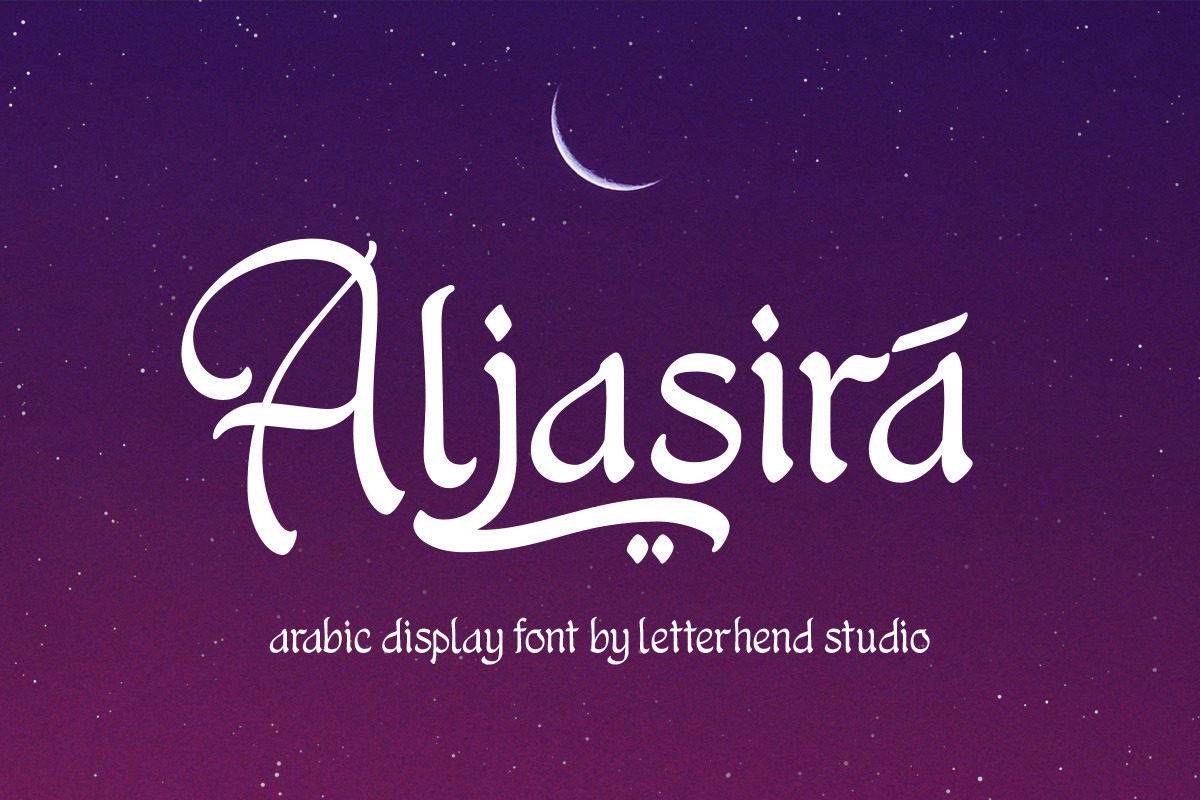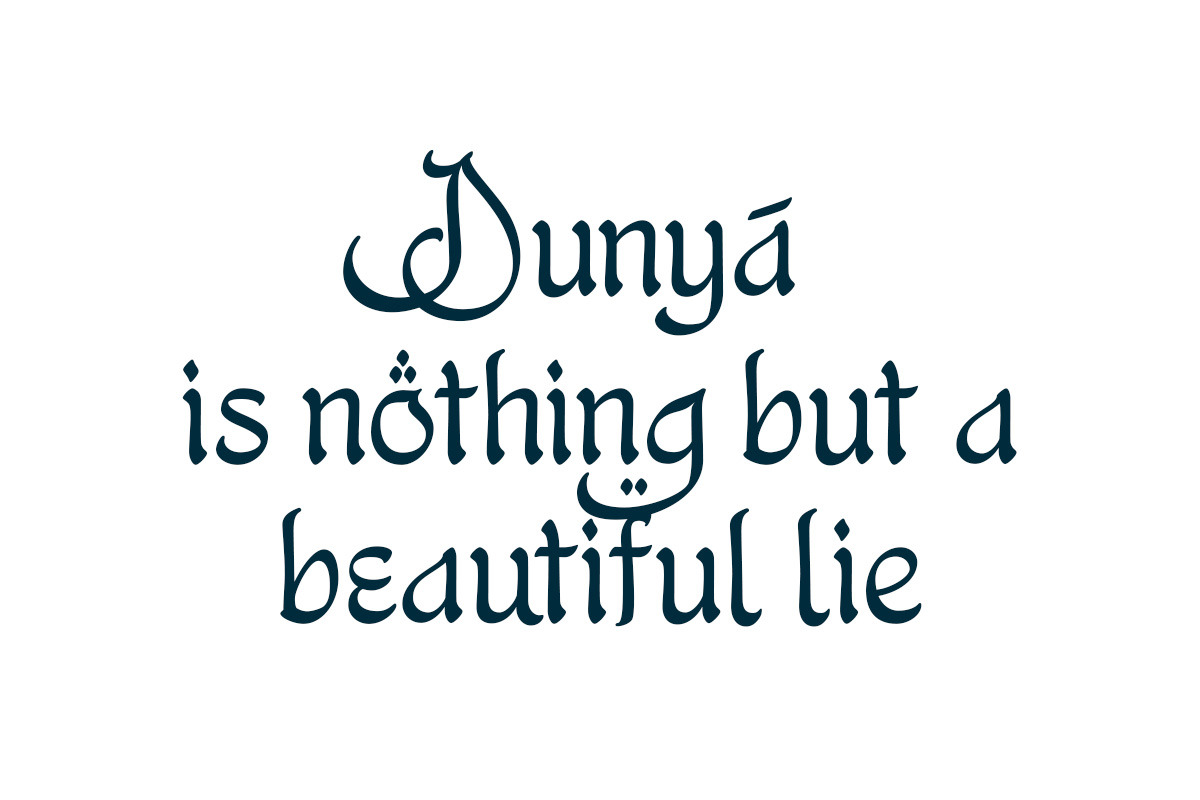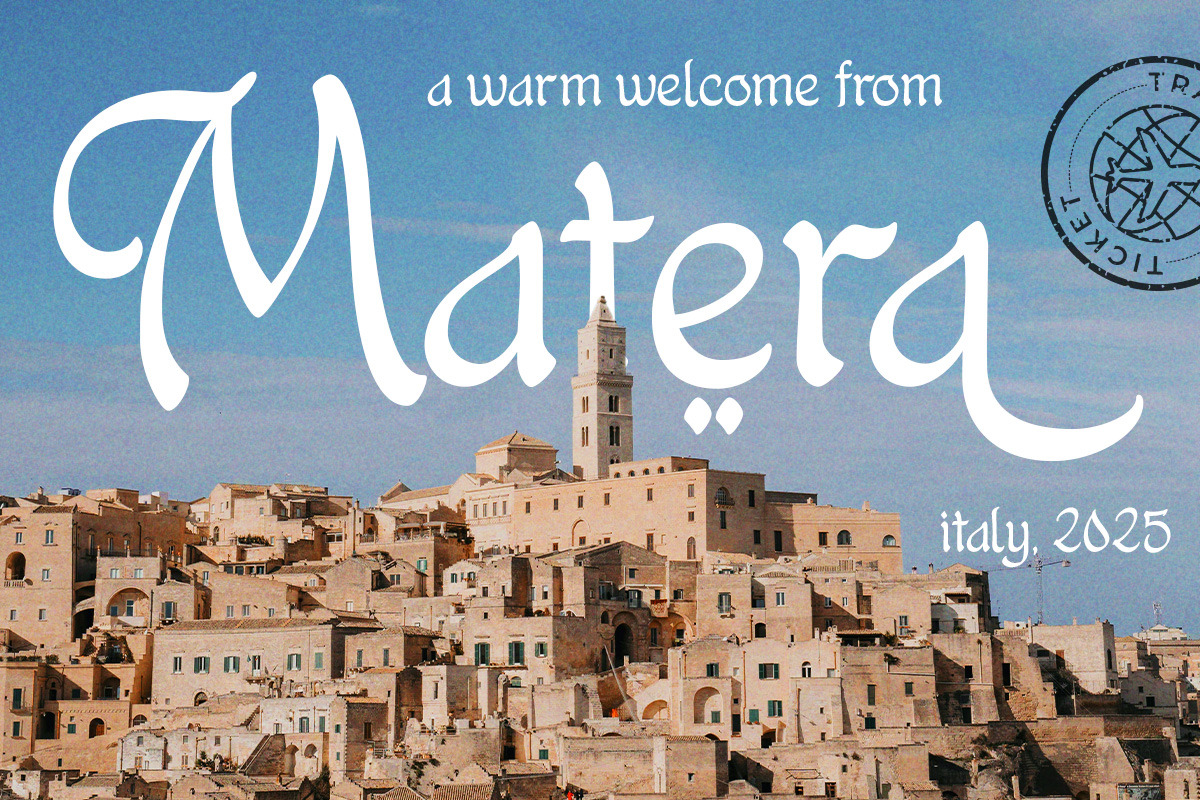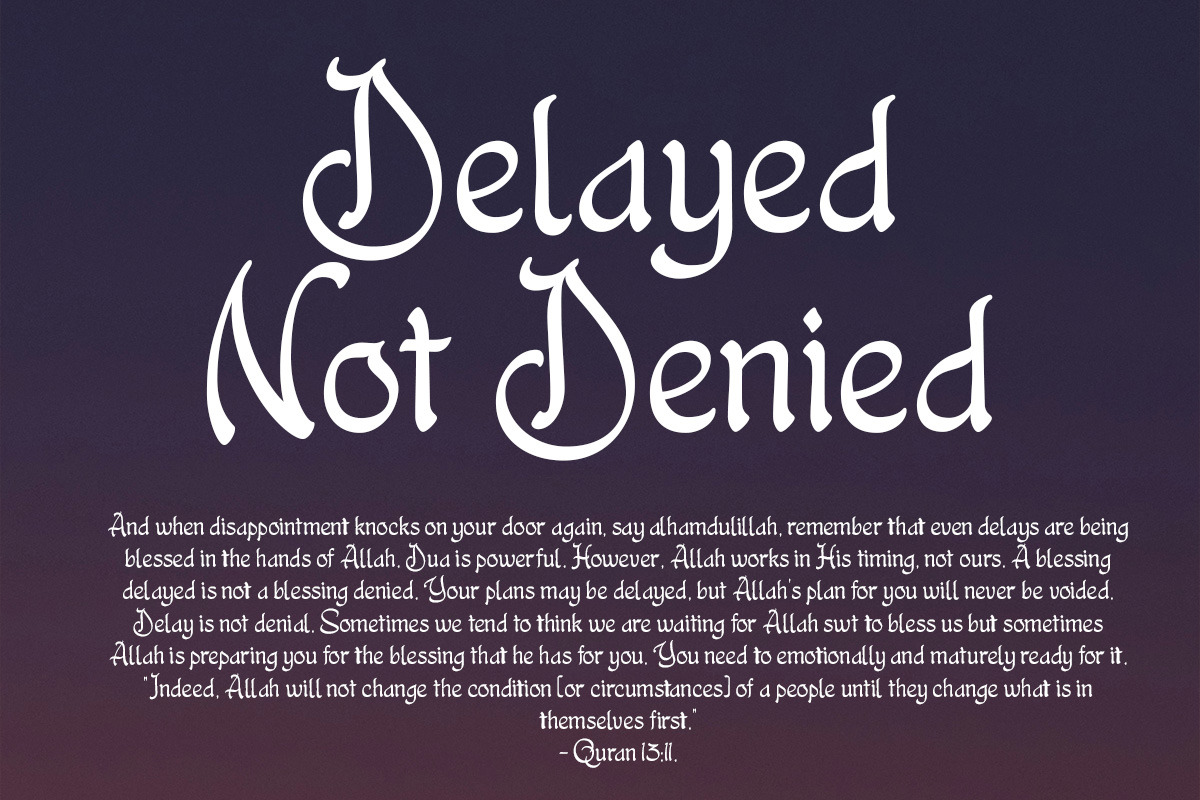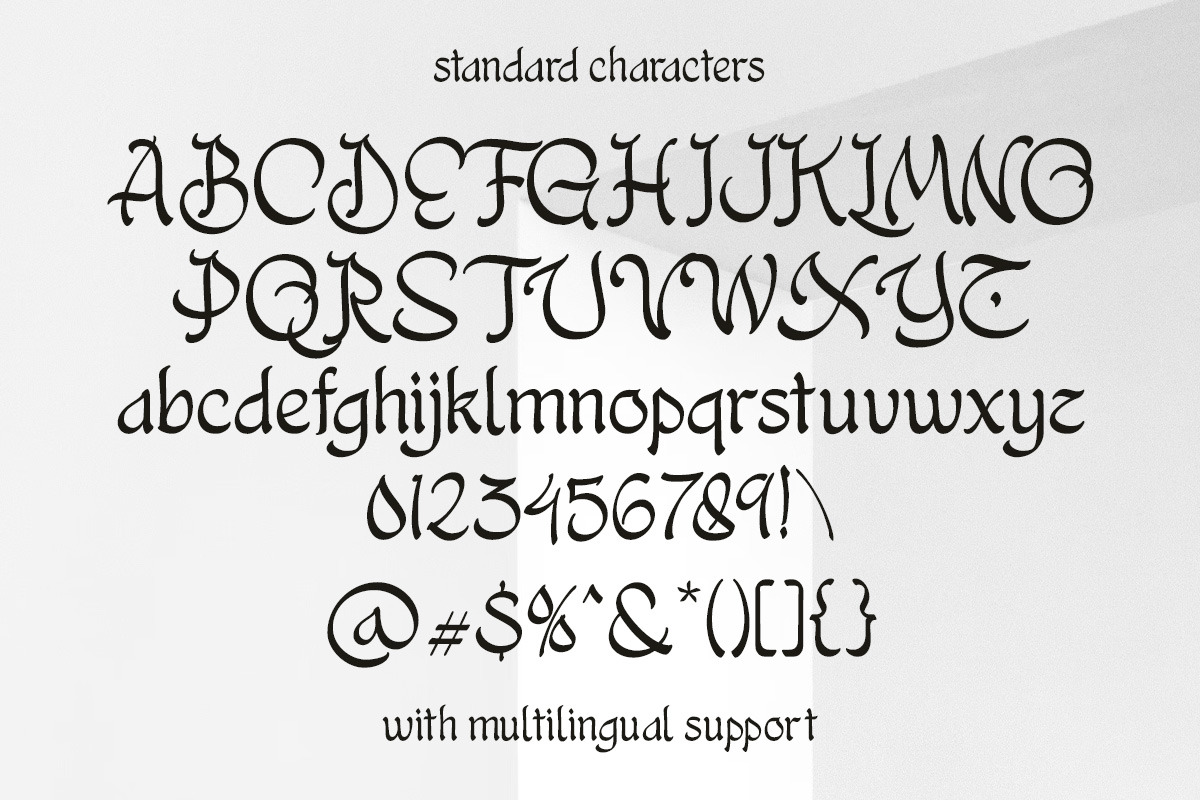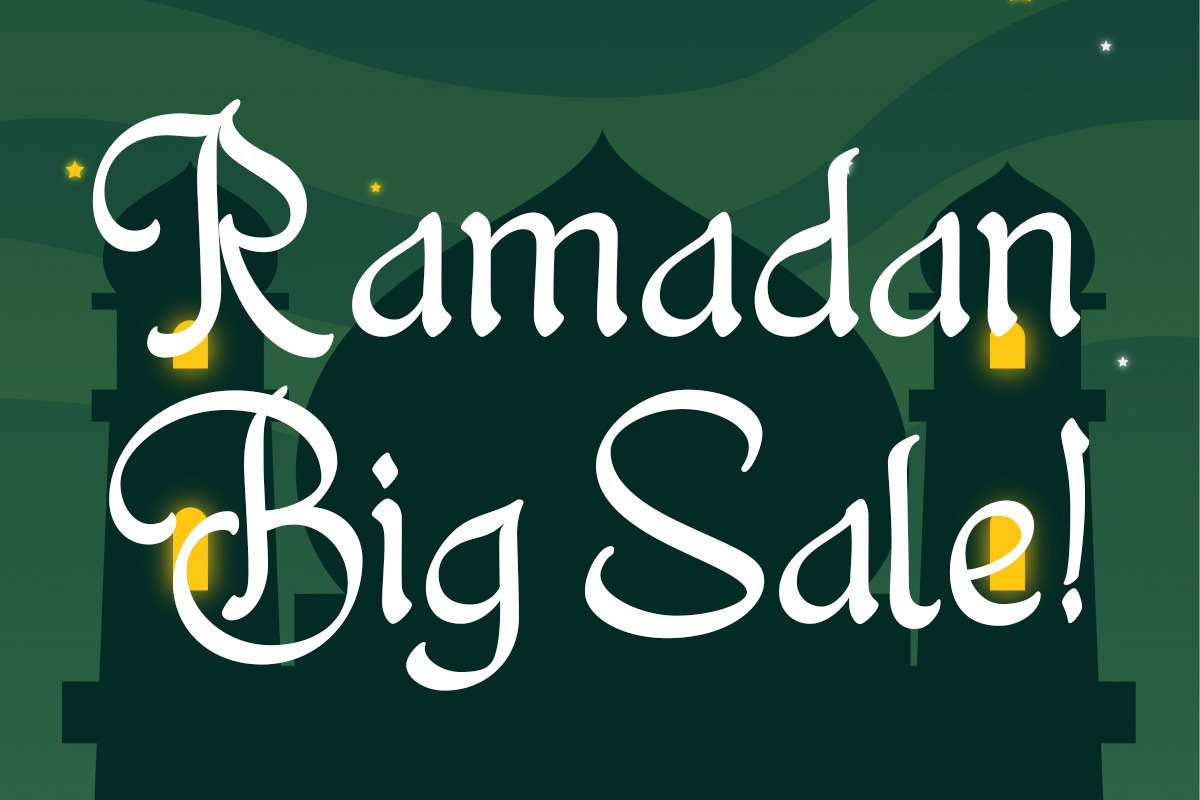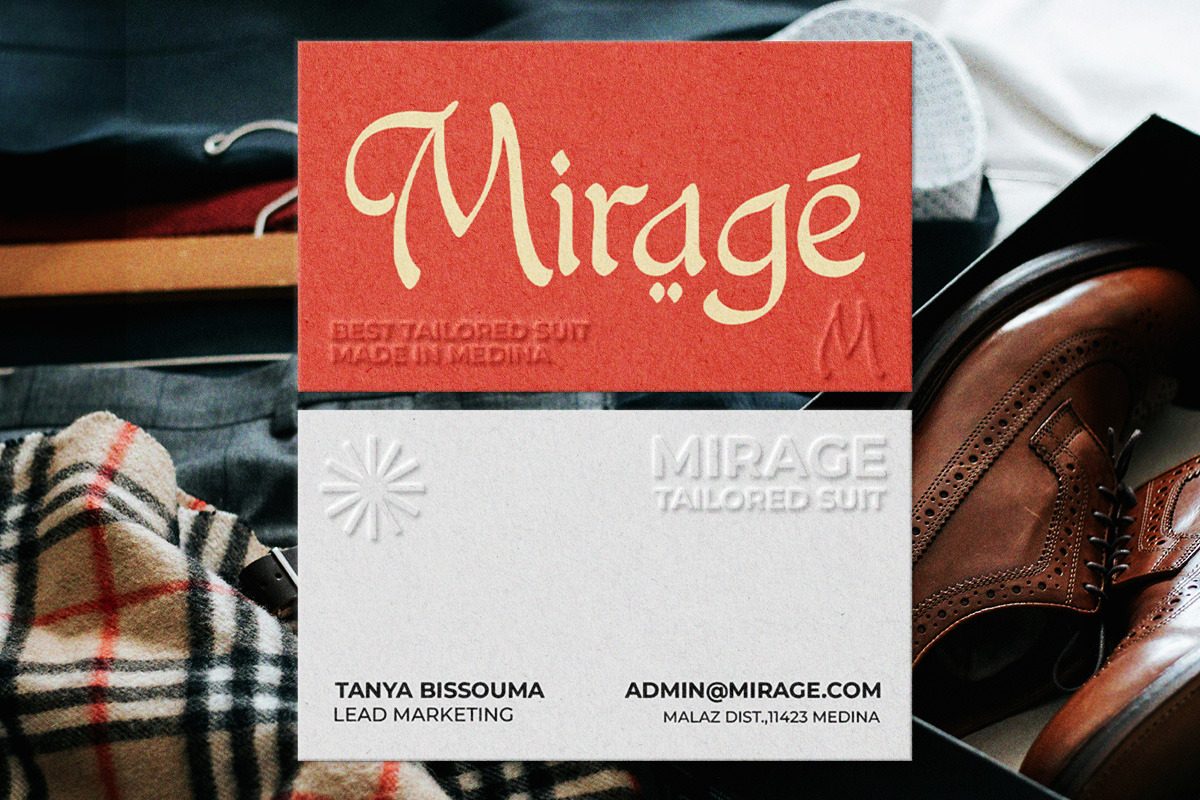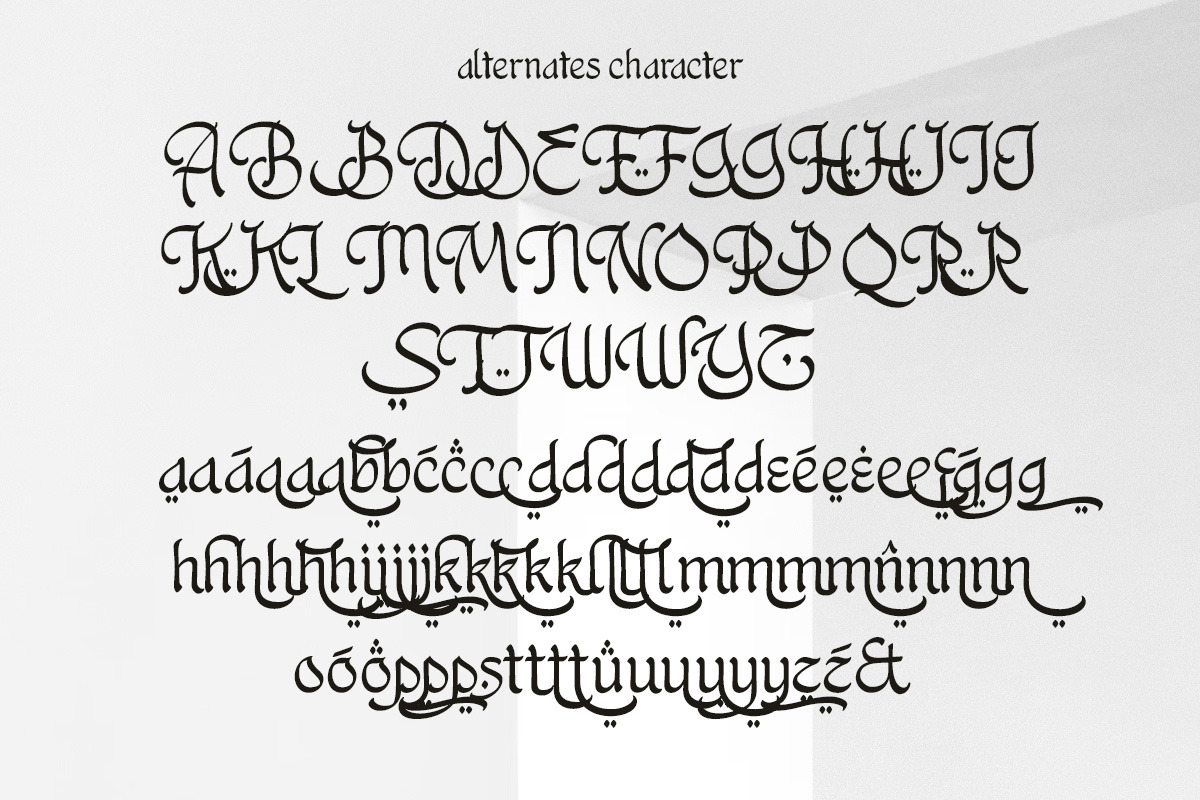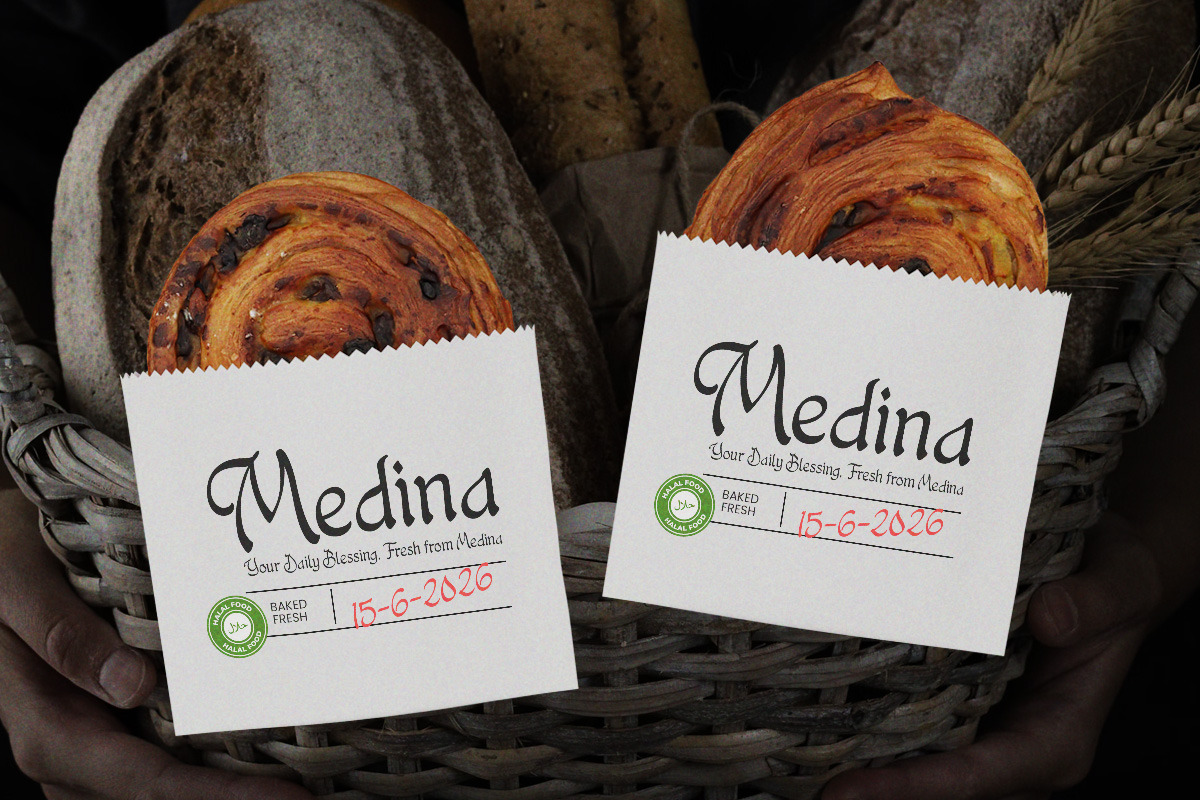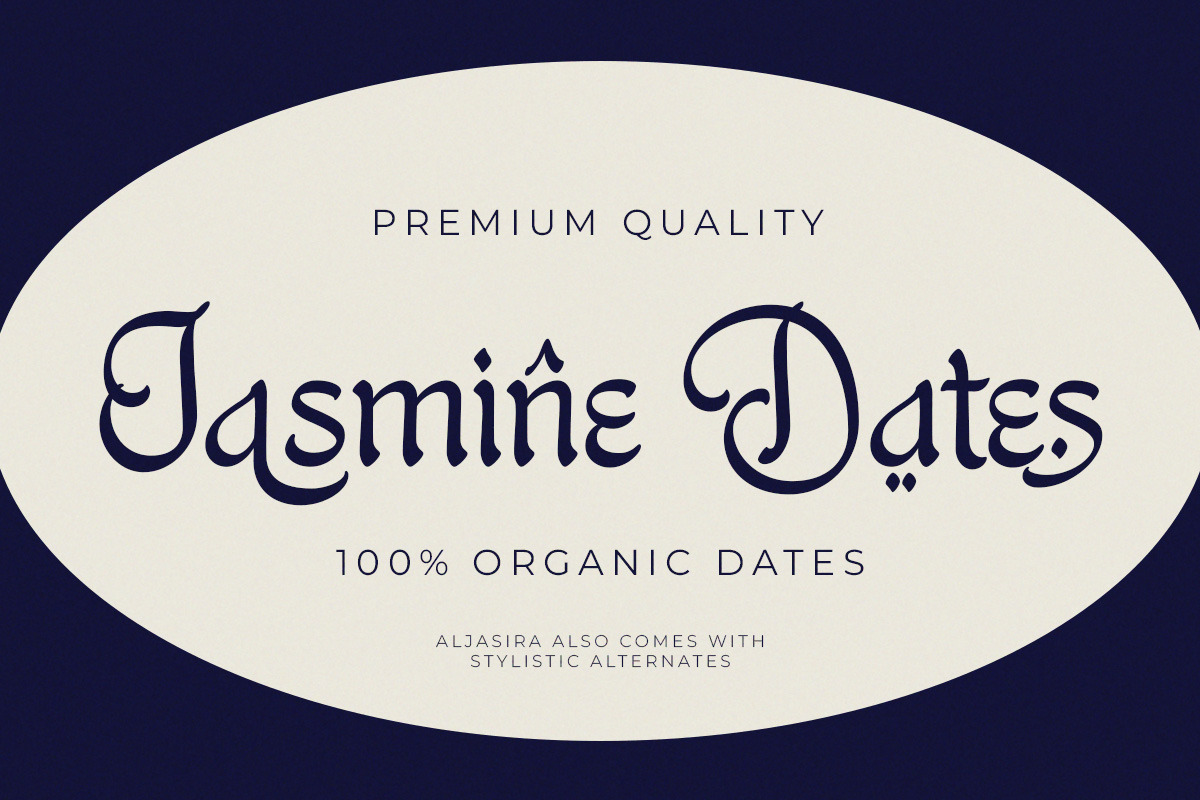
Aljasira Arabic Display Font
So magicalš - Meet Aljasira, the font that transports you straight into an enchanting Middle Eastern night with its intricate curves and modern Arabic-inspired design. Combining the elegance of traditional Arabic calligraphy with a contemporary alphabet twist, itās rich in detail yet fresh.
Perfect for branding, logos, posters, or storytelling, Aljasira oozes charm and brings a magical, bazaar-like vibe to any projectālike sipping mint tea under a crescent moon. šāØ